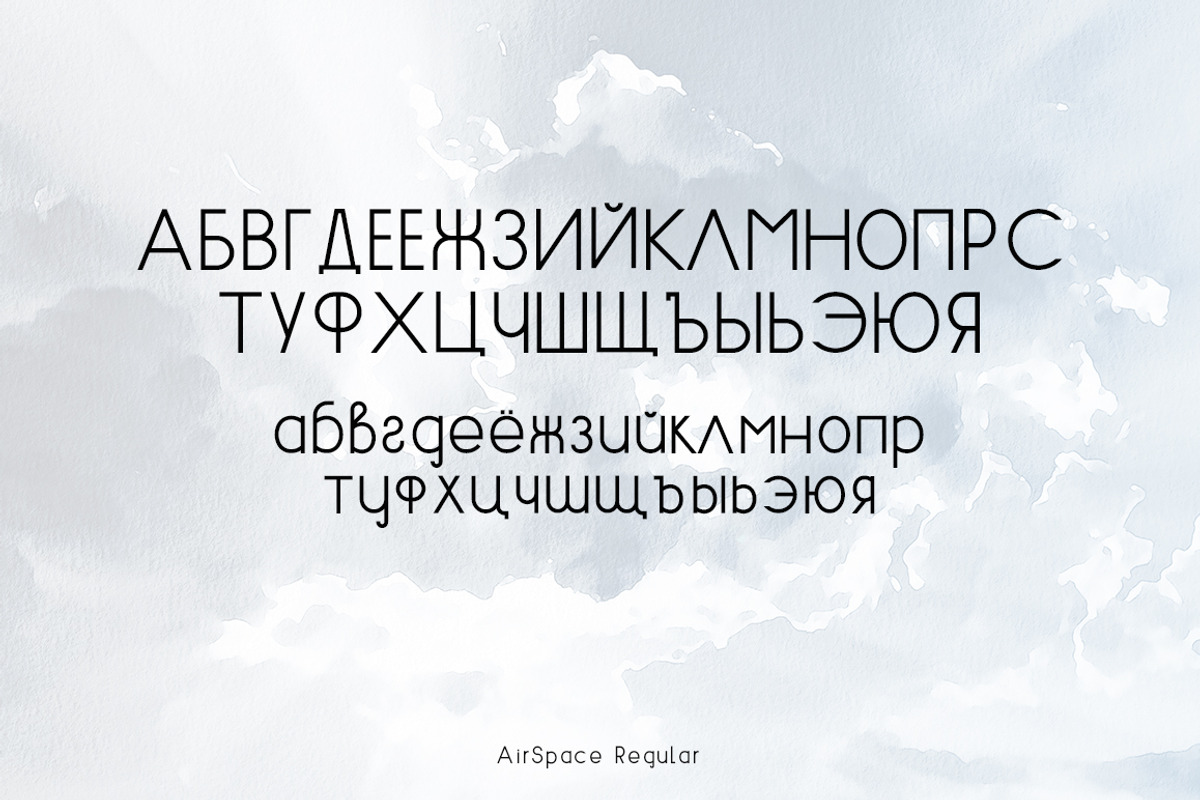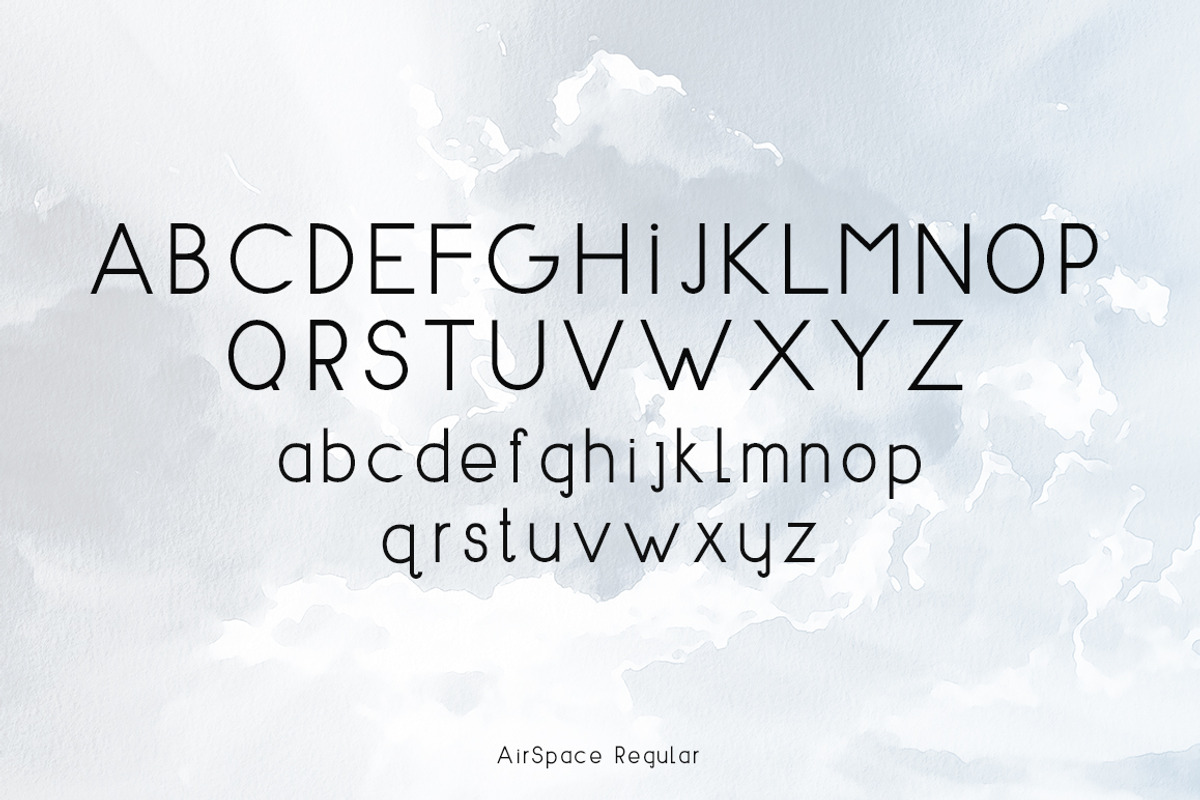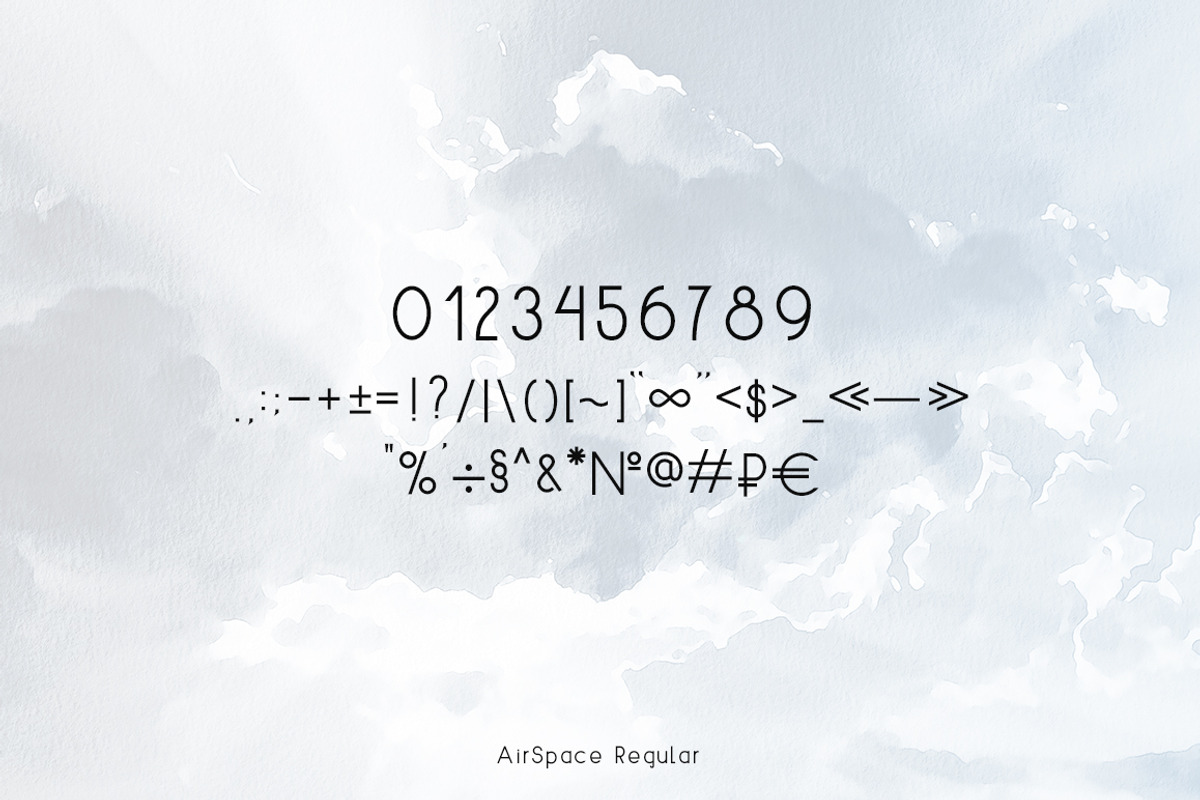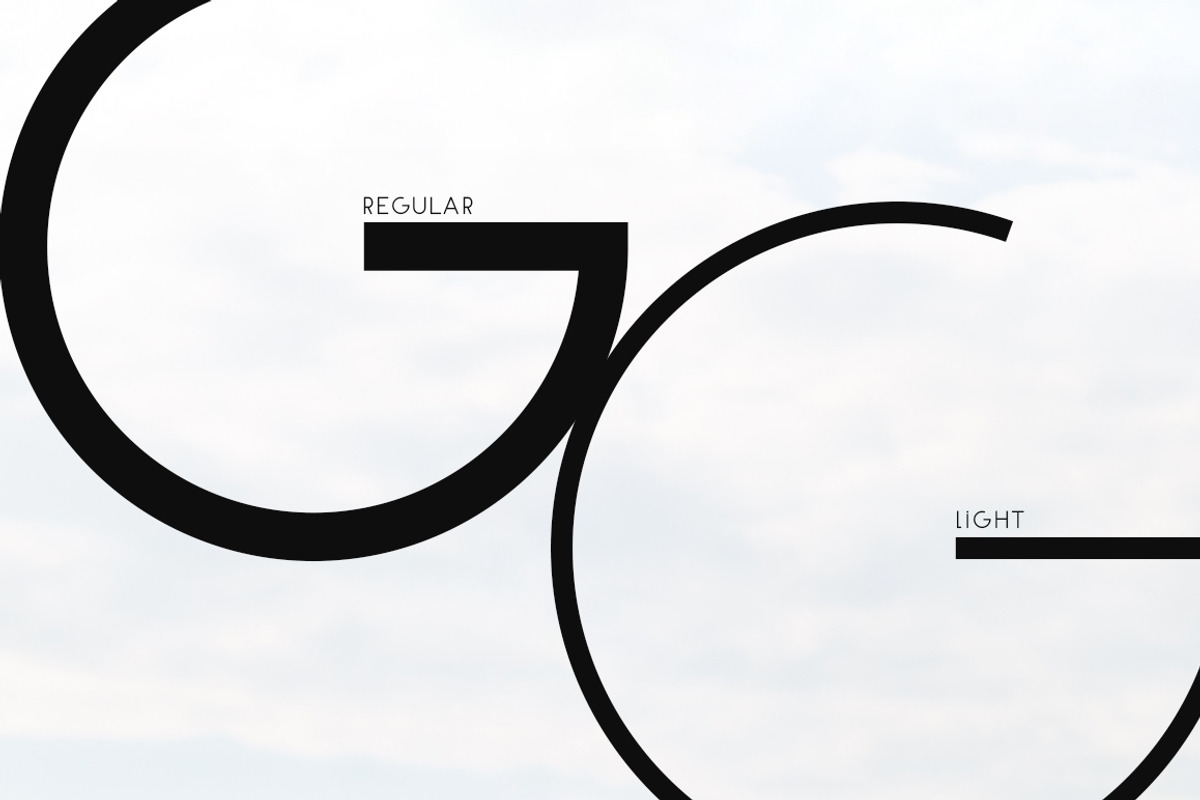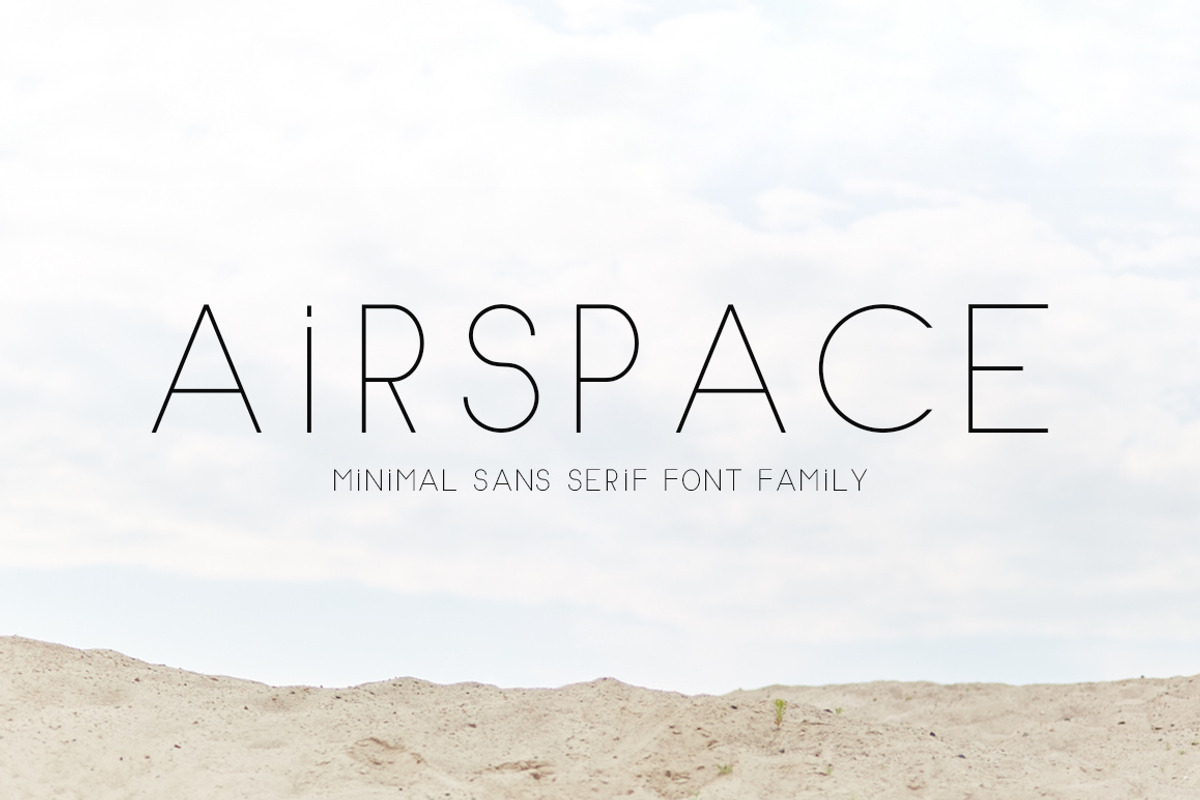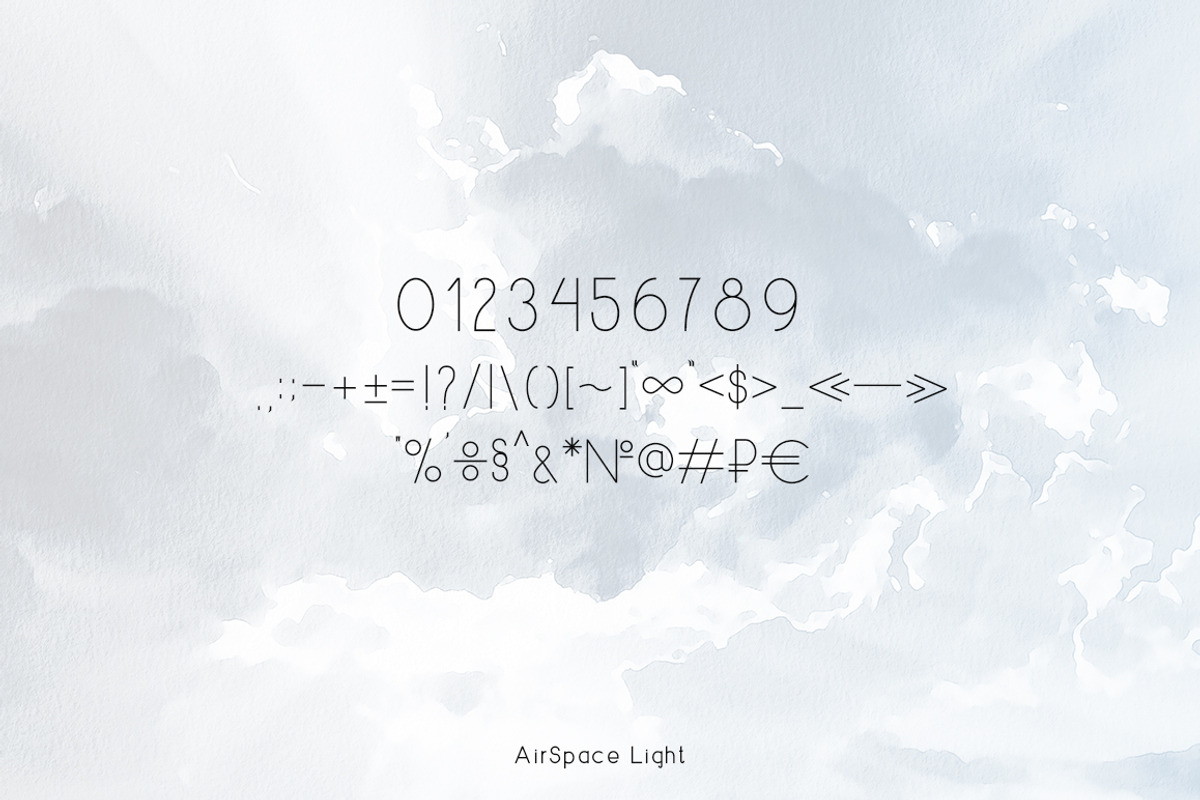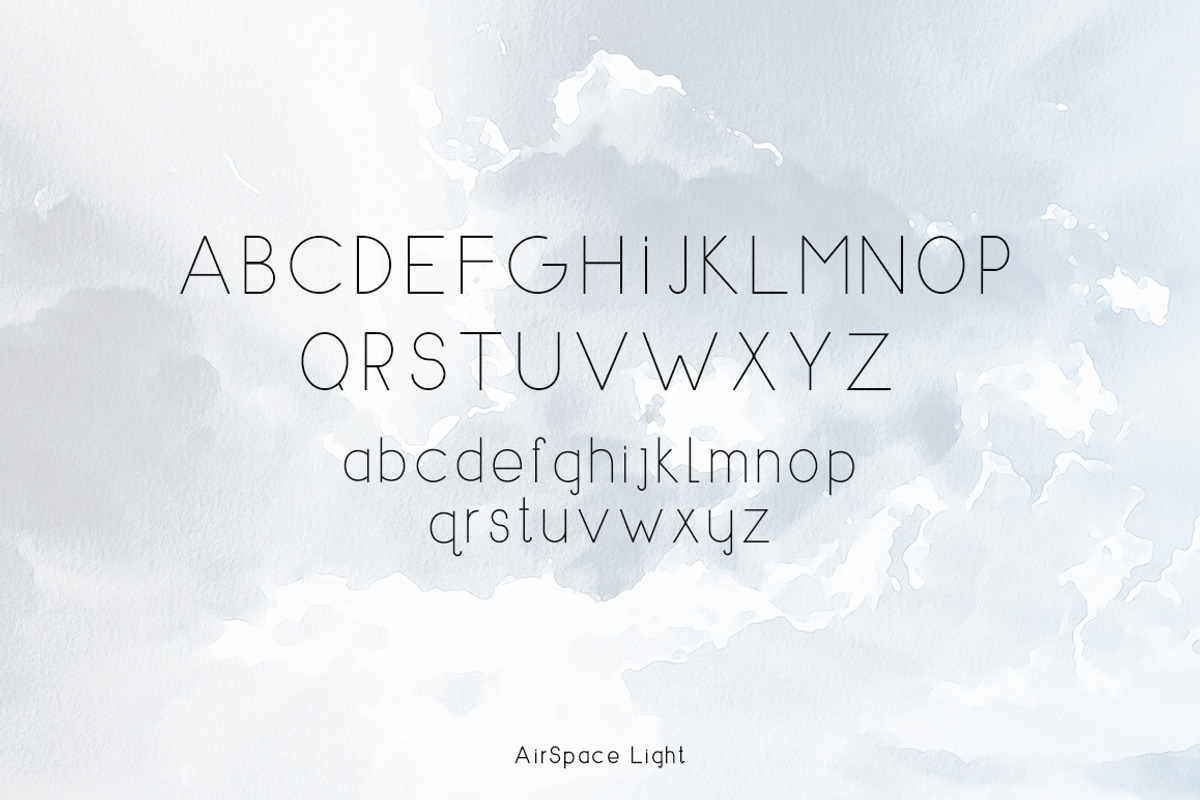
AIRSPACE | Minimal Sans Serif Font
Airspace Font a simple, clean and elegant sans serif, combines with updated, clean letterforms. It includes both Roman and Cyrillic charachters and contains an uppercase alphabet with numbers and symbols. Perfect for magazine layouts, invitations, logos, or other artwork.
- It includes both Roman and Cyrillic charachters and contains an uppercase alphabet with numbers and symbols.